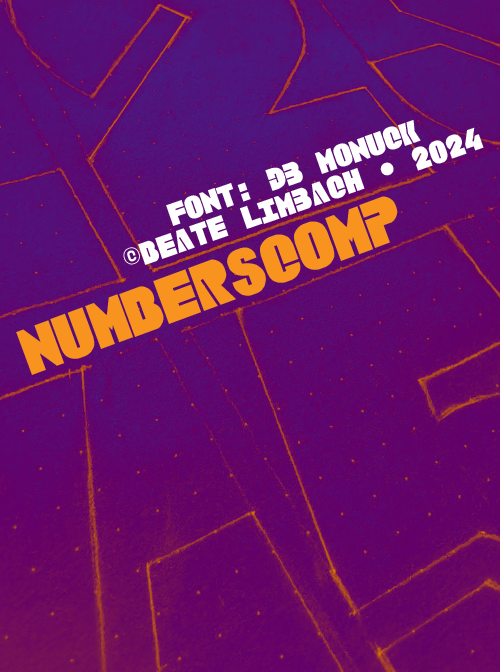
• My note: db Monuck is NOT a color font. When creating the font, I had created different versions in different layers, which can no longer be deleted.  Now, despite everything, the note "Color Font" appears, although it is not.
Nice work. Just wondering if there is supposed to be an inktrap at the top of the 7?
@beate I think any font with multiple layers, even if they are all of the same colour will automatically be put in the color font category.
If your design is all in the one layer, then make sure that this is the only layer visible in the FontStructor – that might get rid of the category.
But don’t worry – it won’t affect eligibility/judging anyway.
@Meek Would it still apply the color font category if all layers have the color #000000?
@BWM yes it just counts the visible layers regardless of colour.
…but I'd still like to know why you can't delete the layers so that they don't reappear the next time you open the file. I mean, it didn't used to be a problem. But I could be wrong.
Pretty neat heavyweight type! Have you tried adding an "incision" to letter Y? It seems a little too heavy at the top.
P.S.:  How did you get the numerals to appear first in the Gallery specimen?
@faux_icing: @meek did it for NumbersComp.
This is my favourite of your three submissions. I love those white lines cutting into the chunky characters under different angles and continuing the contours of the letters.
this font makes me wanna buy a vowel